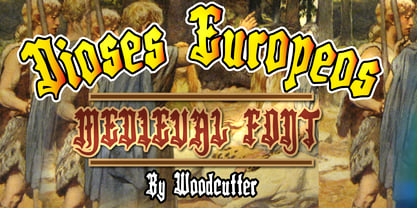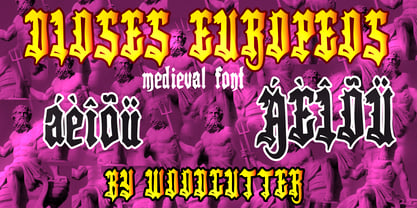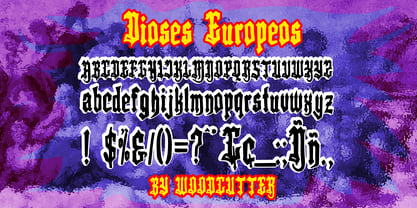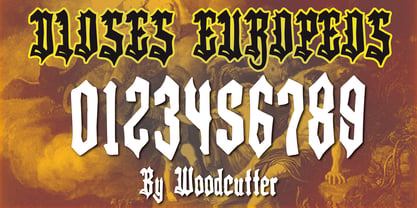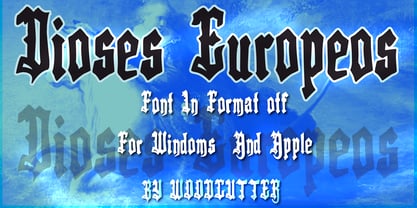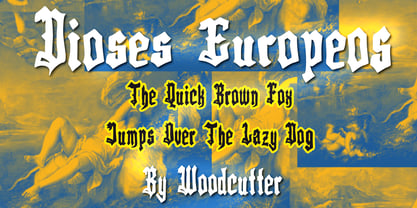
Dioses Europeos
Dioses Europeos is a typeface that captures the spiritual, artistic, and cultural essence of medieval Europe. Designed in both uppercase and lowercase with full accent support, this font draws inspiration from gothic tradition, reinterpreted through an organic and imperfect approach that brings life and personality to every character.
Its letterforms follow a classical structure while deliberately avoiding rigidity through subtle irregularities reminiscent of hand-drawn script by ancient scribes. The uppercase letters stand out in particular, featuring gently undulating shapes and refined decorative touches that enhance their presence without overwhelming the design. These nuances introduce rhythm and visual movement, creating a rich and evocative texture.
The lowercase letters maintain formal consistency but adopt a more functional role, ensuring readability while preserving the handcrafted essence that defines the typeface. Together, they convey a sense of living antiquity, as if each character had been carefully written on parchment.
Dioses Europeos is ideal for editorial projects, cultural branding, posters, covers, or any application that requires a historical, elegant, and human-centered aesthetic. It is a typeface that bridges tradition and emotion, turning every word into a distinctive visual expression.